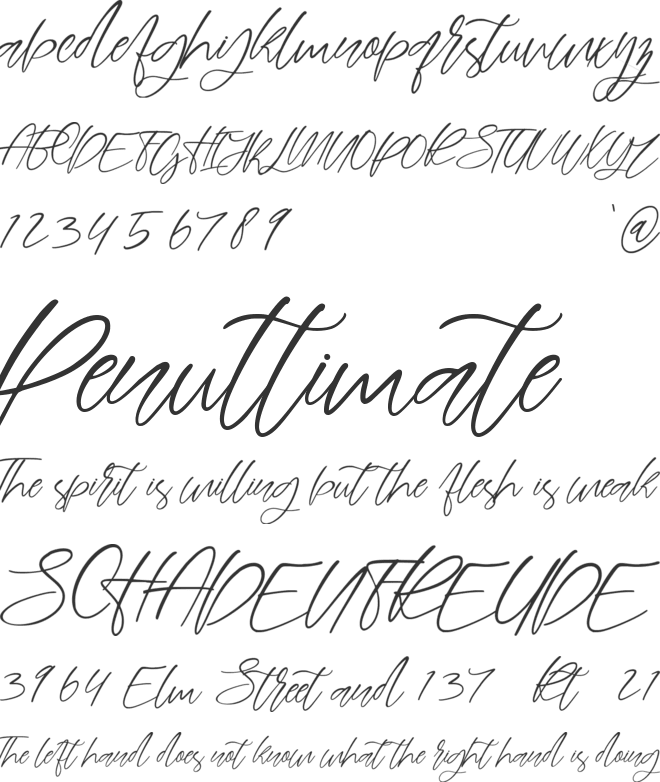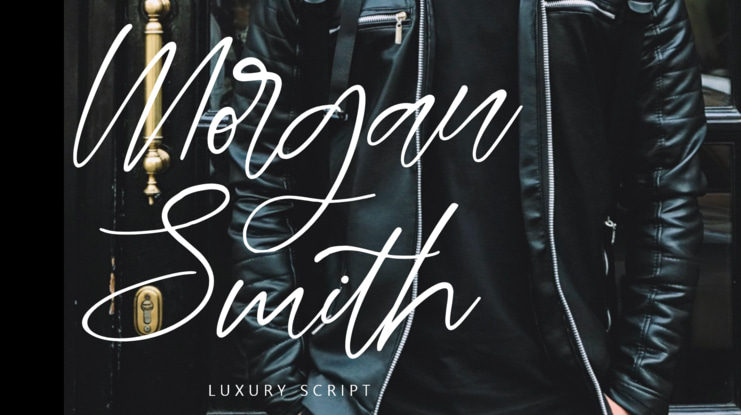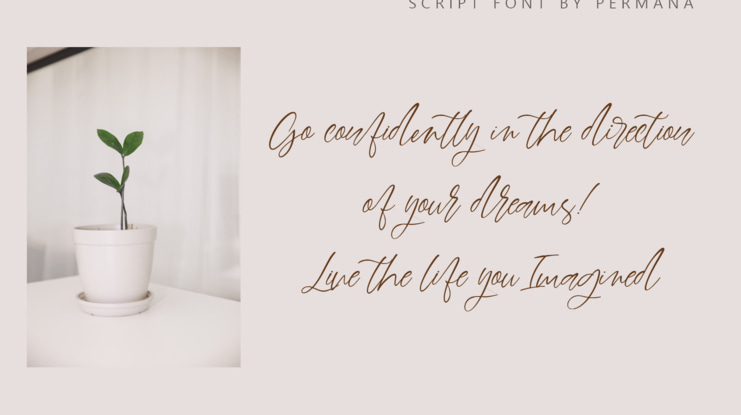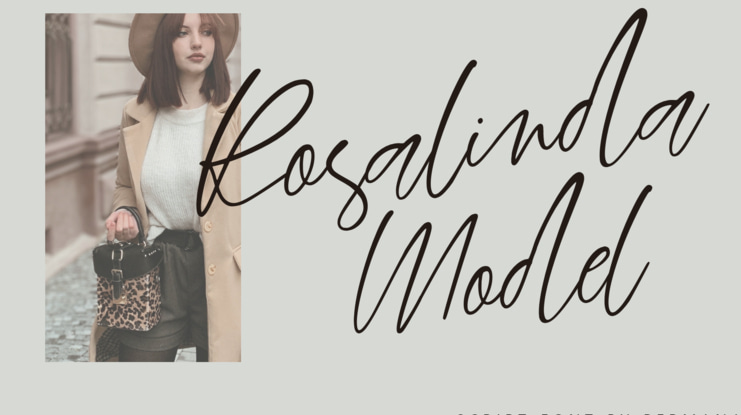
Hunter Killer Font
Hunter Killer is a slick modern Calligraphy font with a magical emphasis. This font is perfect for photography signature logos or wedding invitations, quote sentences or logos for brands.
Hunter Killer includes a full set of beautiful handwritten upper and lower case letters, numbers, assorted punctuation ligatures provide a realistic handwriting style.